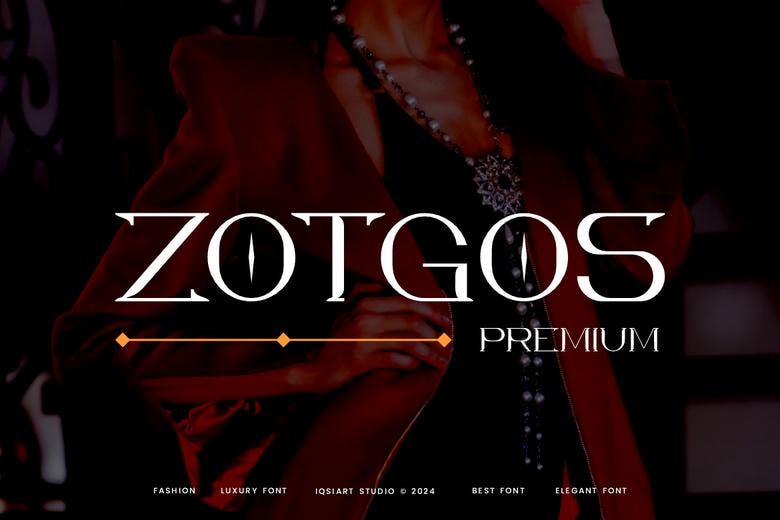
Zotgos Premium Font
The modern and concise serif font called Zotgos Premium is perfect for luxury fashion. Because of the sharp, elegant curvilinear text it would be suitable for luxury brand naming, logos, titles in the magazine. This font gives any design a professional and more formal look, giving your work that expensive touch.
Zotgos Premium Serif Font